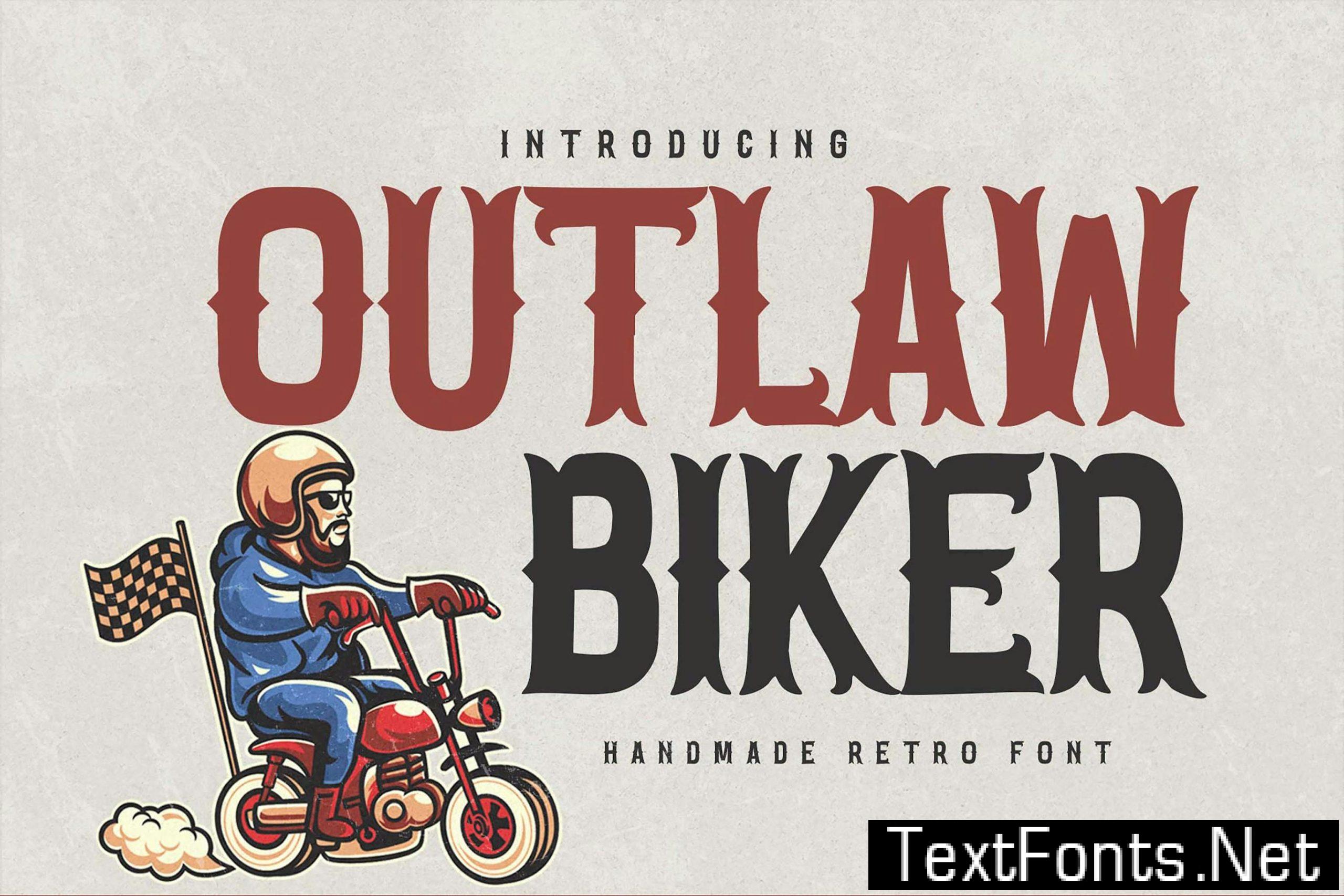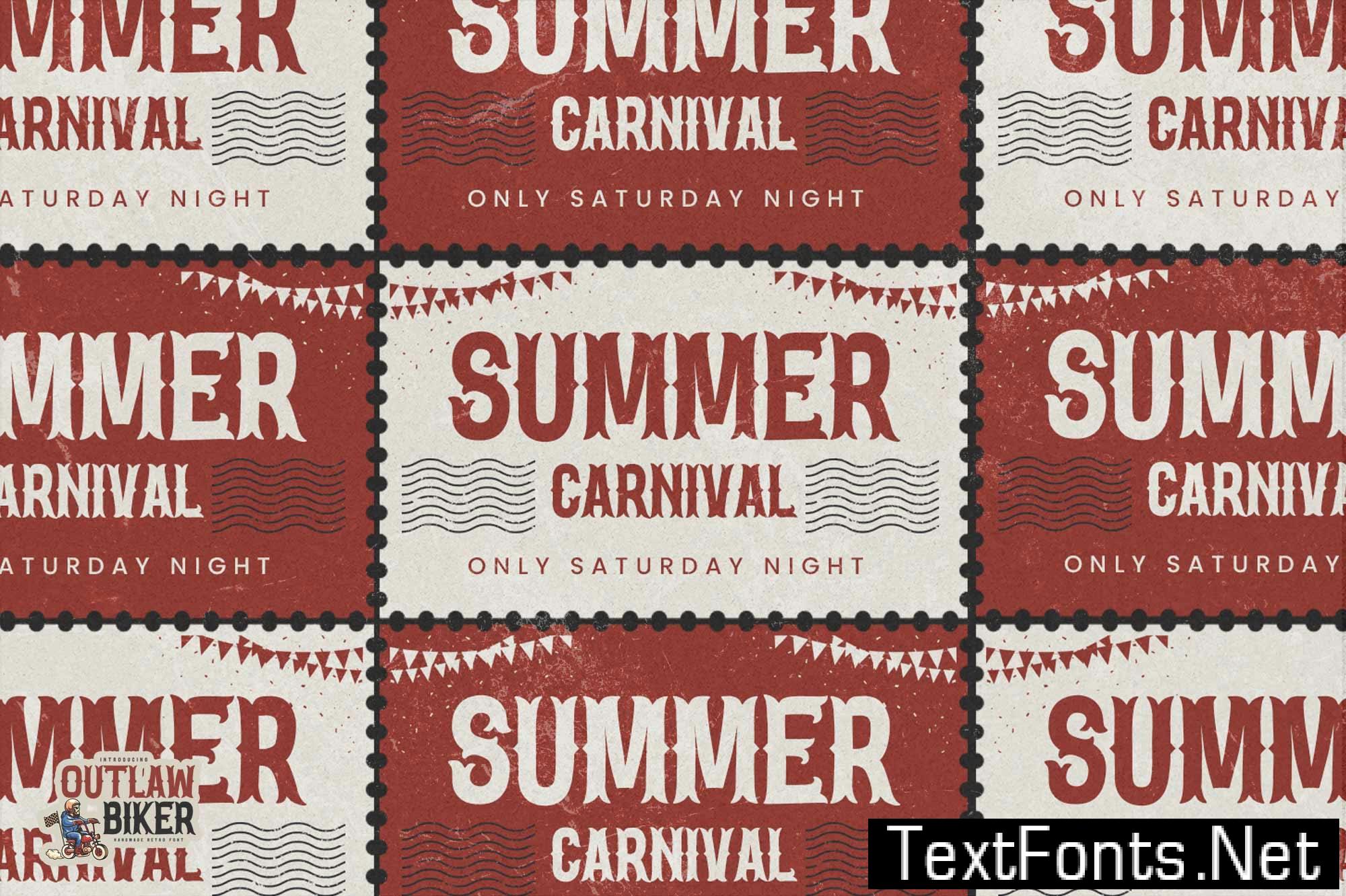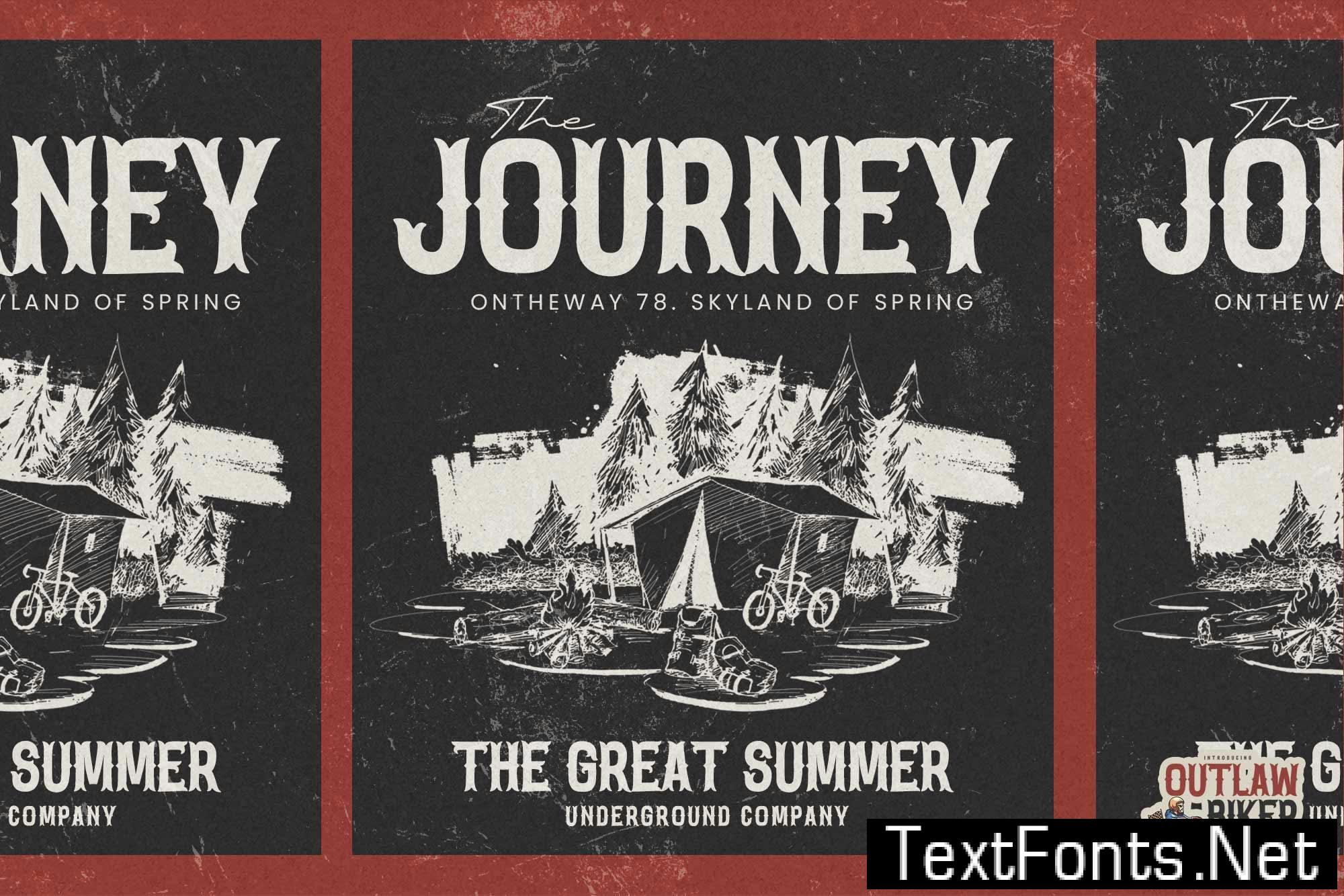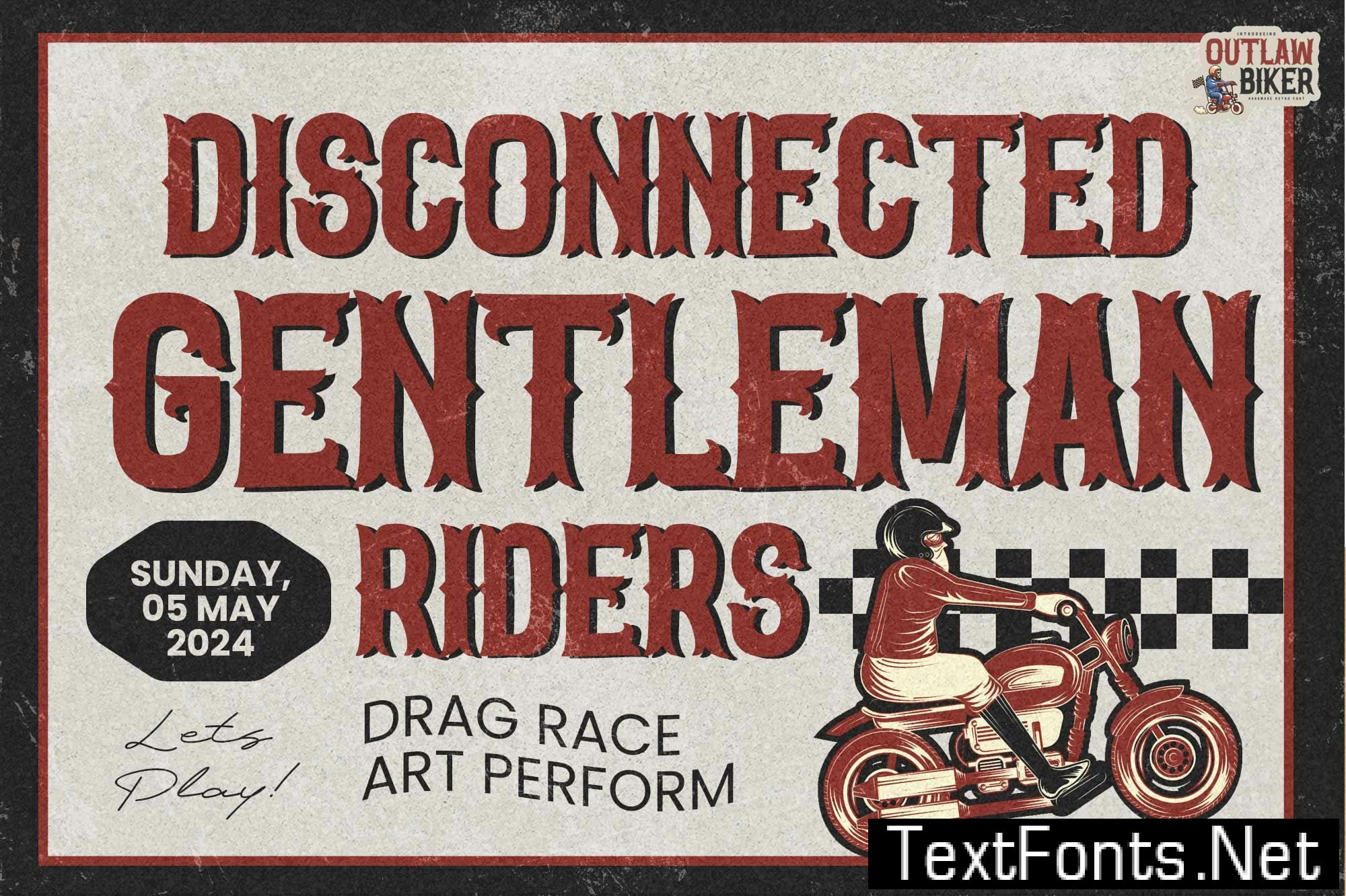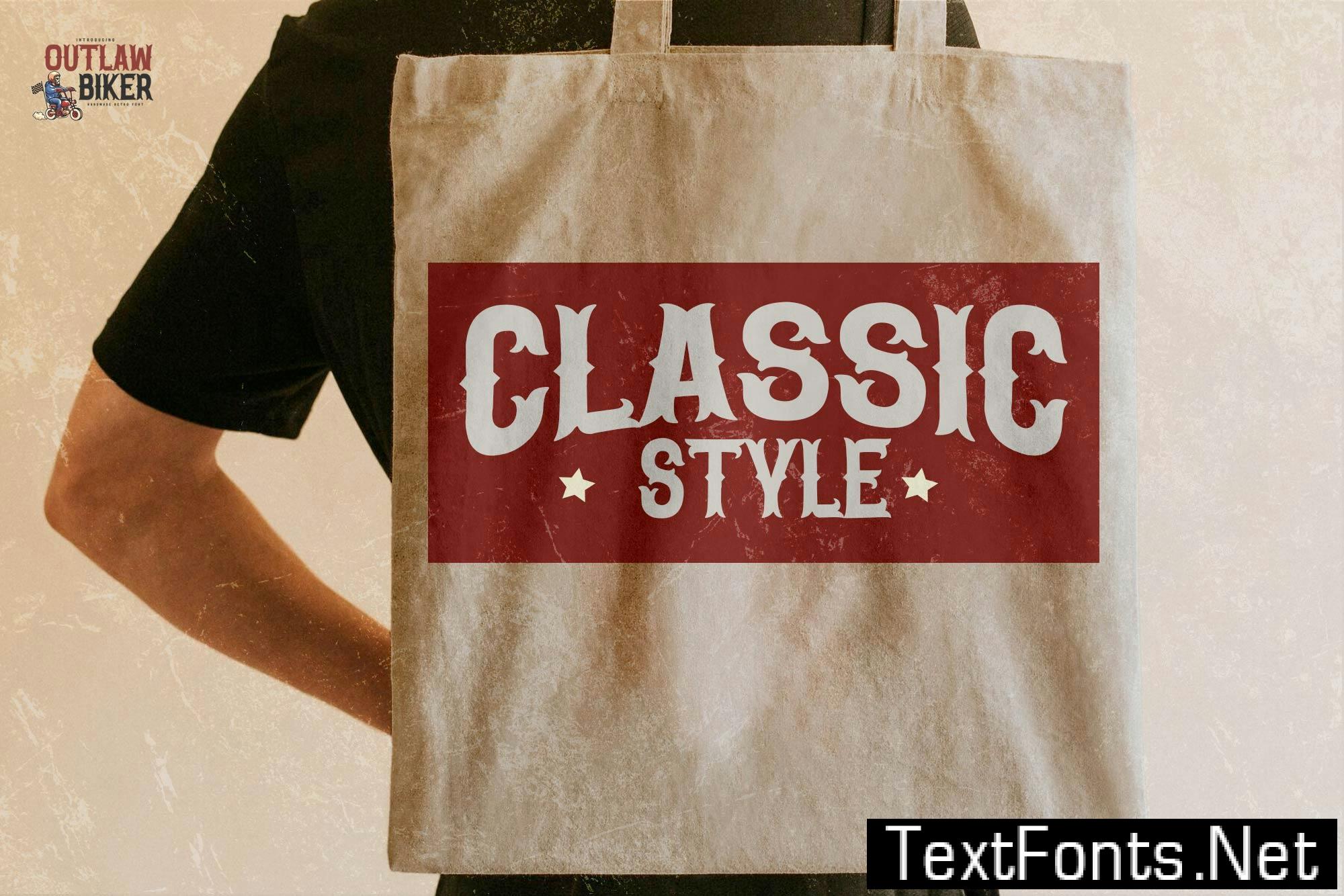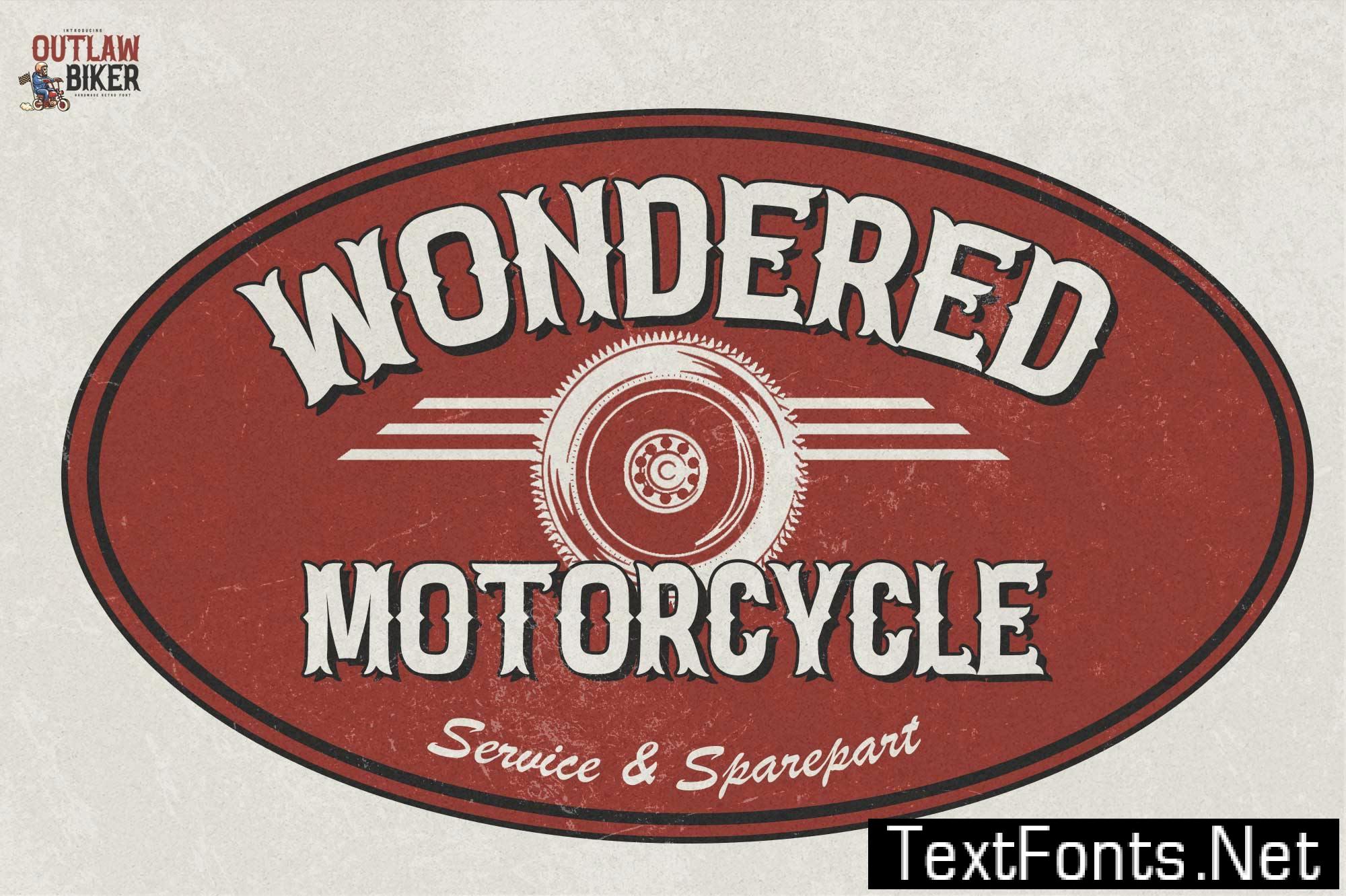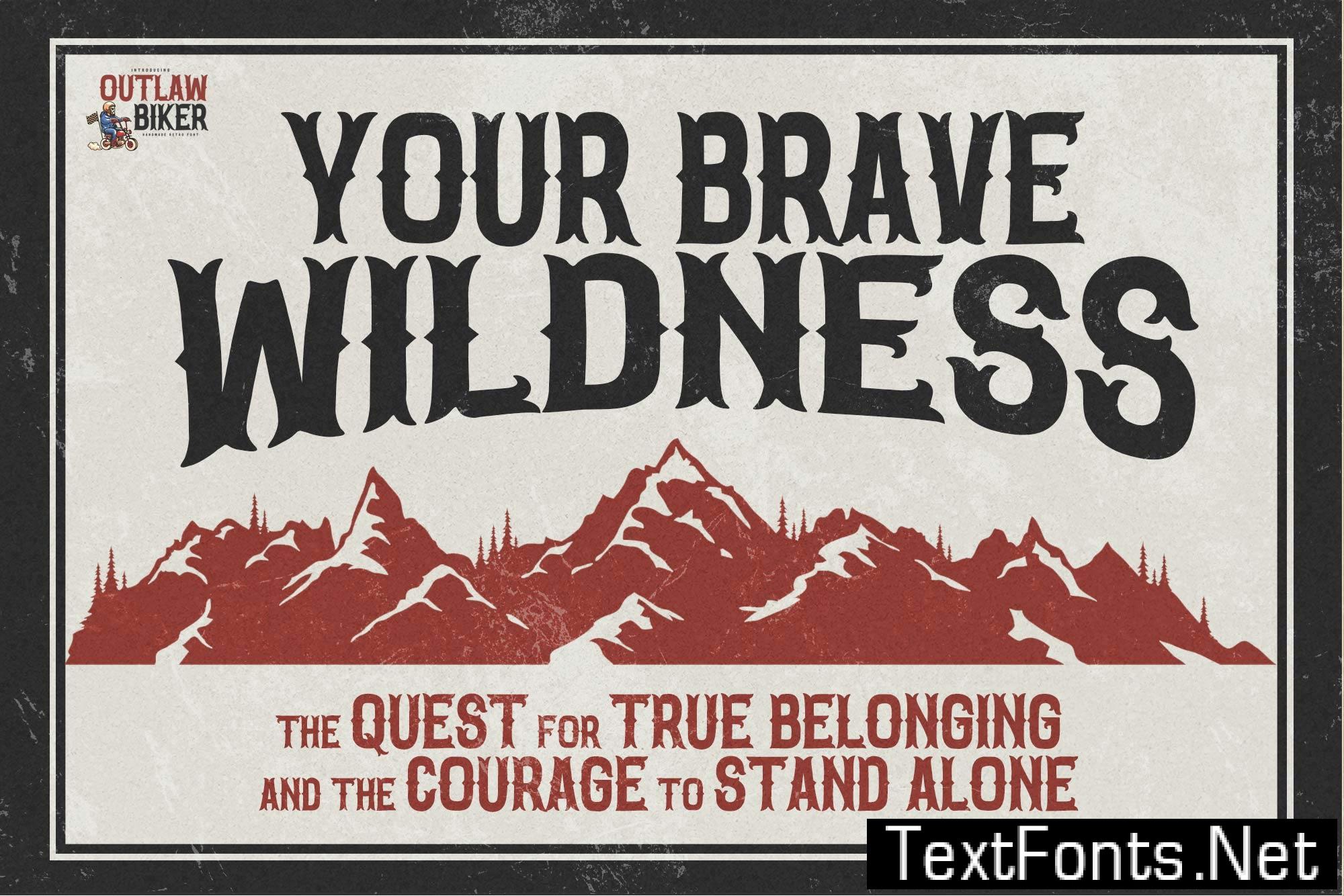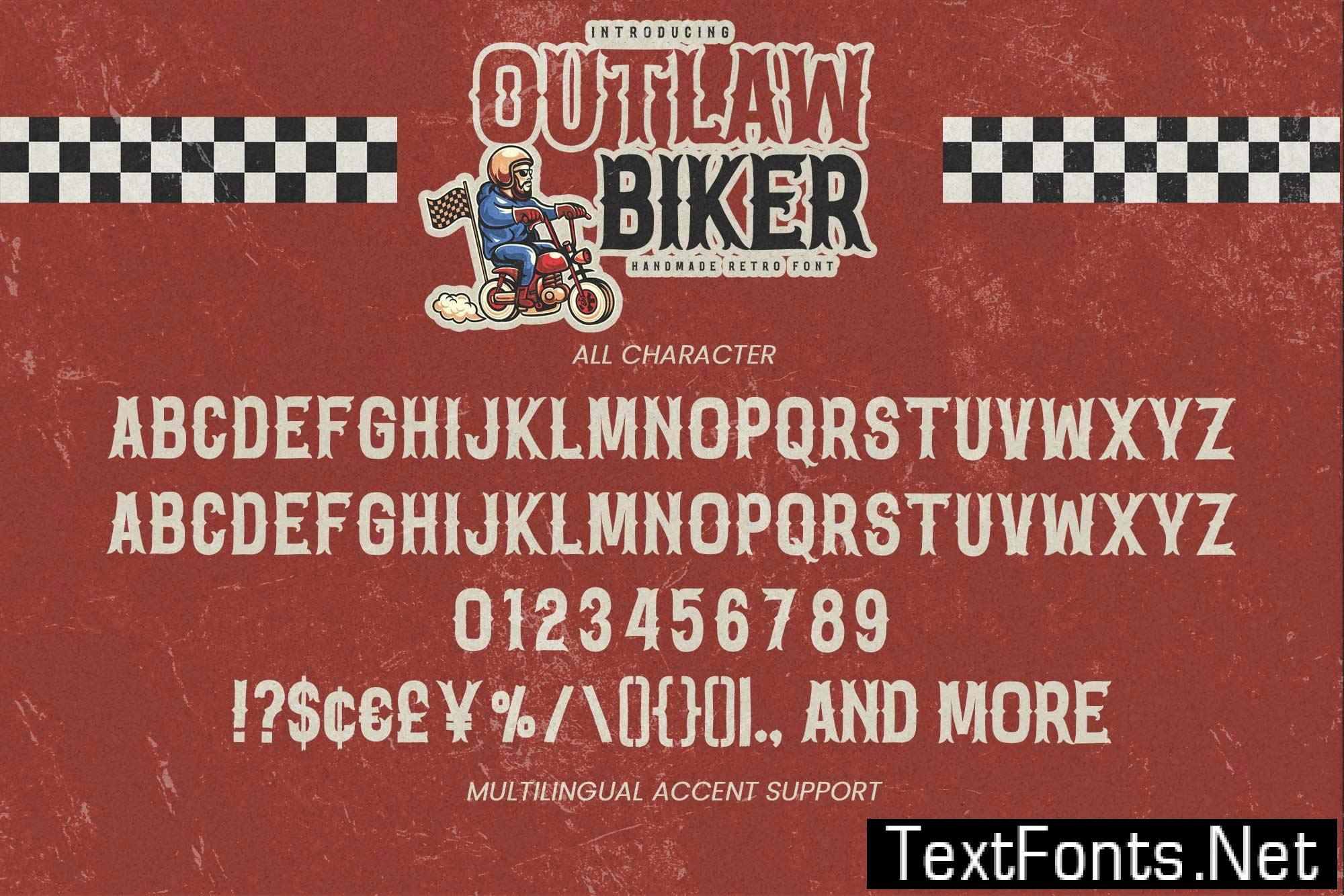
Outlaw Biker – Handmade Retro Font W2CWYQP
Hello Everyone, introduce our new product Font **Outlaw Biker** This Is Handmade Retro Font. With classy retro font and decorative sans.
This font **Outlaw Biker** is great for your next creative project such as logos, printed quotes, invitations, cards, product packaging, headers, Logotype, Letterhead, Poster, Design this font is great for your creative projects such as watermark on photography, and perfect for logos & branding, invitation,advertisements,product designs, stationery, wedding designs,label ,product packaging, special events or anything that need handwritting taste.
That is has charming, authentic and relaxed characteristic more natural look to your text.